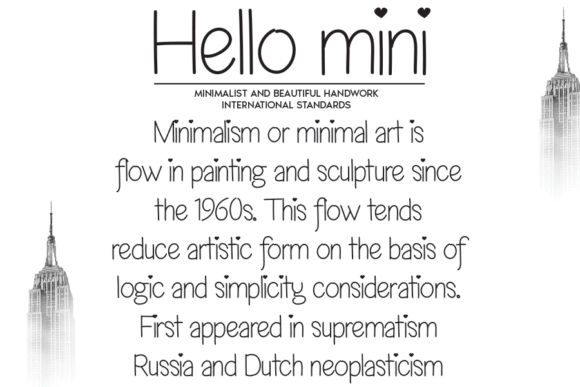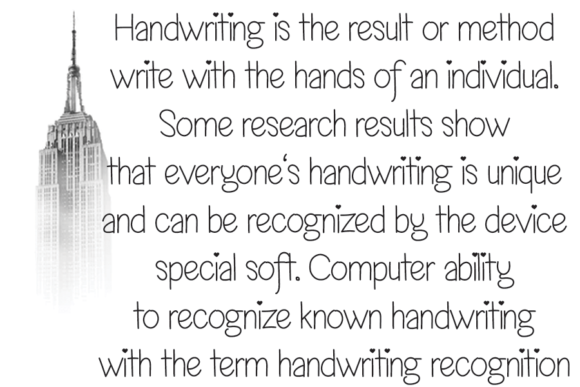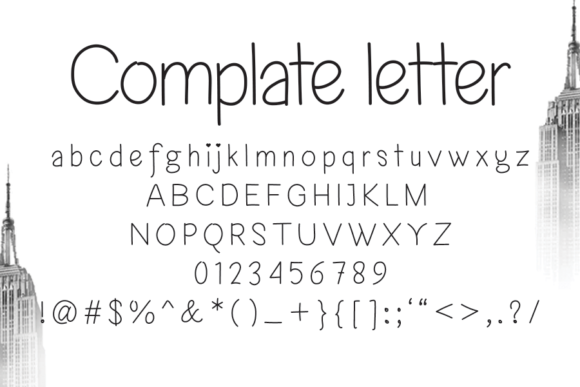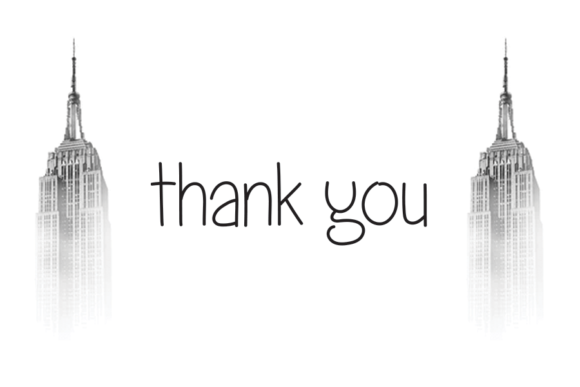
Introduction to Hello Mini Font
Have you ever been scrolling through your Instagram feed, and a beautifully handwritten caption catches your eye? It’s those little moments that make us stop and appreciate the artistry behind a well-designed post. For designers and creatives, finding the perfect font can be a game-changer. And that’s exactly where the Hello Mini Font comes in – a magical handwritten font that adds a touch of elegance to any creative project.
With its high-quality design and versatility, the Hello Mini Font is an invaluable resource for designers looking to elevate their work. Whether you’re working on a project that requires a transparent background or a free download, this font is sure to deliver. Its beauty lies in its simplicity, making it a perfect fit for a wide range of creative projects.
Hello Mini Font
- High-quality design resource ideal for creative projects, with a transparent background for seamless integration.
- Includes 5 unique characters, each with intricate details and subtle variations, perfect for adding a touch of elegance to your design.
- Features a high-resolution design, with a resolution of 300 DPI, ensuring crisp and clear text even at large sizes.
- Perfect for use in a variety of creative projects, including logos, typography, and graphic design.
Honest Review: Hello Mini Font
I recently came across the Hello Mini Font while searching for a design resource to elevate my creative project. As a designer, I was excited to explore this font and see if it would meet my expectations.
- The Hello Mini Font has a clean and minimalist design, making it perfect for modern and sleek designs.
- It has a transparent background, which allows for easy layering and editing.
- The Hello Mini Font may not be suitable for projects that require a lot of bold or italic text, as the font can appear somewhat fragile in these styles.
- The font’s limited character set may make it difficult to use for longer blocks of text.
Overall, I’m impressed with the Hello Mini Font’s high quality and versatility. While it may have some limitations, it’s a great addition to any designer’s toolkit, especially for free design resources.
Tips for Getting the Most Out of Hello Mini Font
To get the most out of the Hello Mini Font, make sure to:
- Use the font on a transparent background to create a clean and minimalist design.
- Combine the Hello Mini Font with other design elements to create a unique and eye-catching design.
The Hello Mini Font is ideal for:
- Creating custom graphics and logos.
- Designing social media posts and ads.
- Developing branding materials and marketing materials.